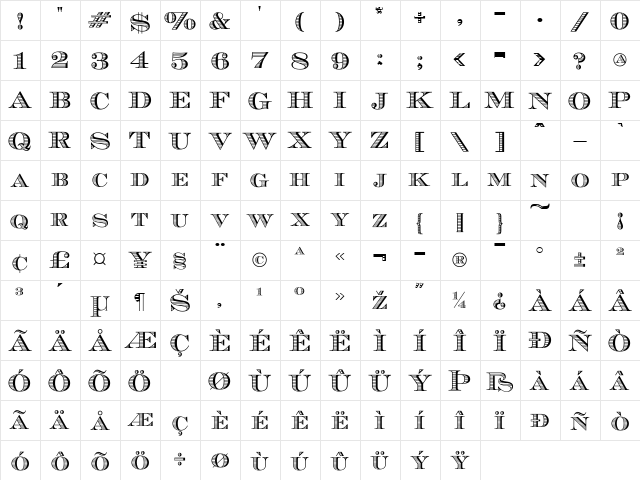
EcuyerDAX Regular
Design Context for EcuyerDAX Typeface
EcuyerDAX is a composed and adaptable typeface that performs quietly and consistently across a wide range of design contexts.